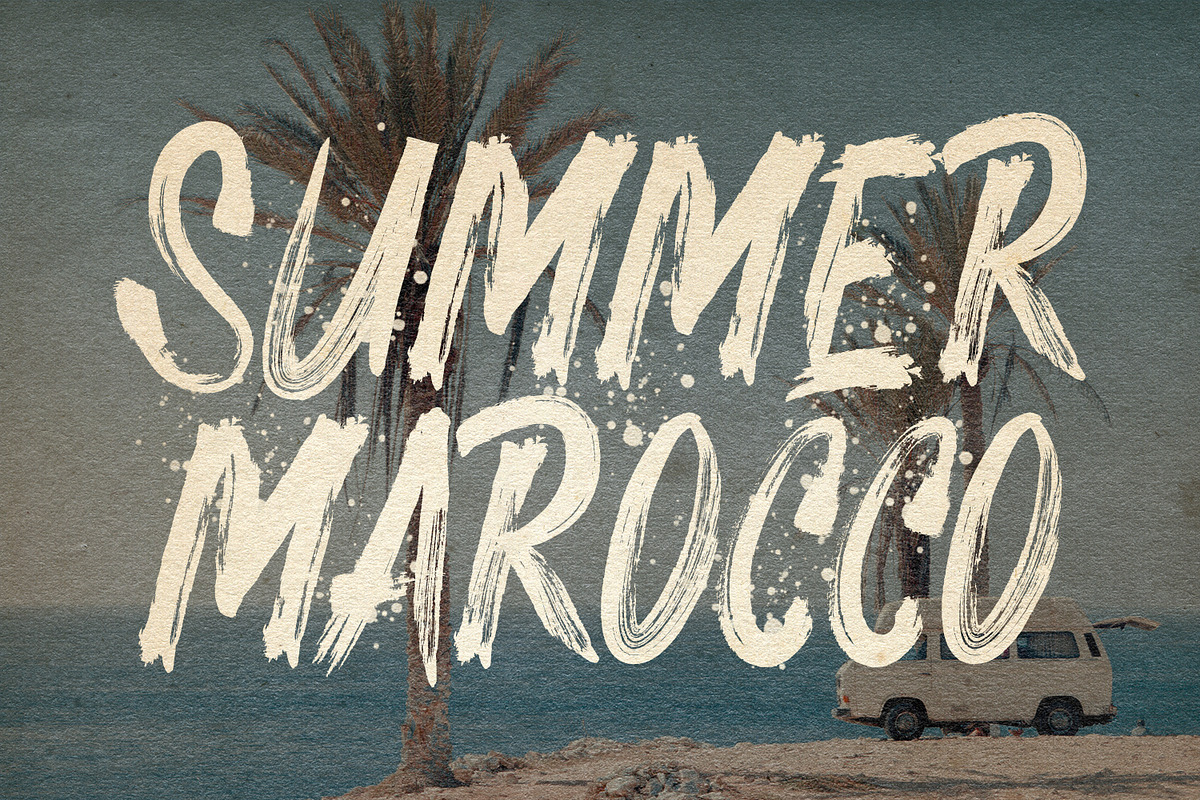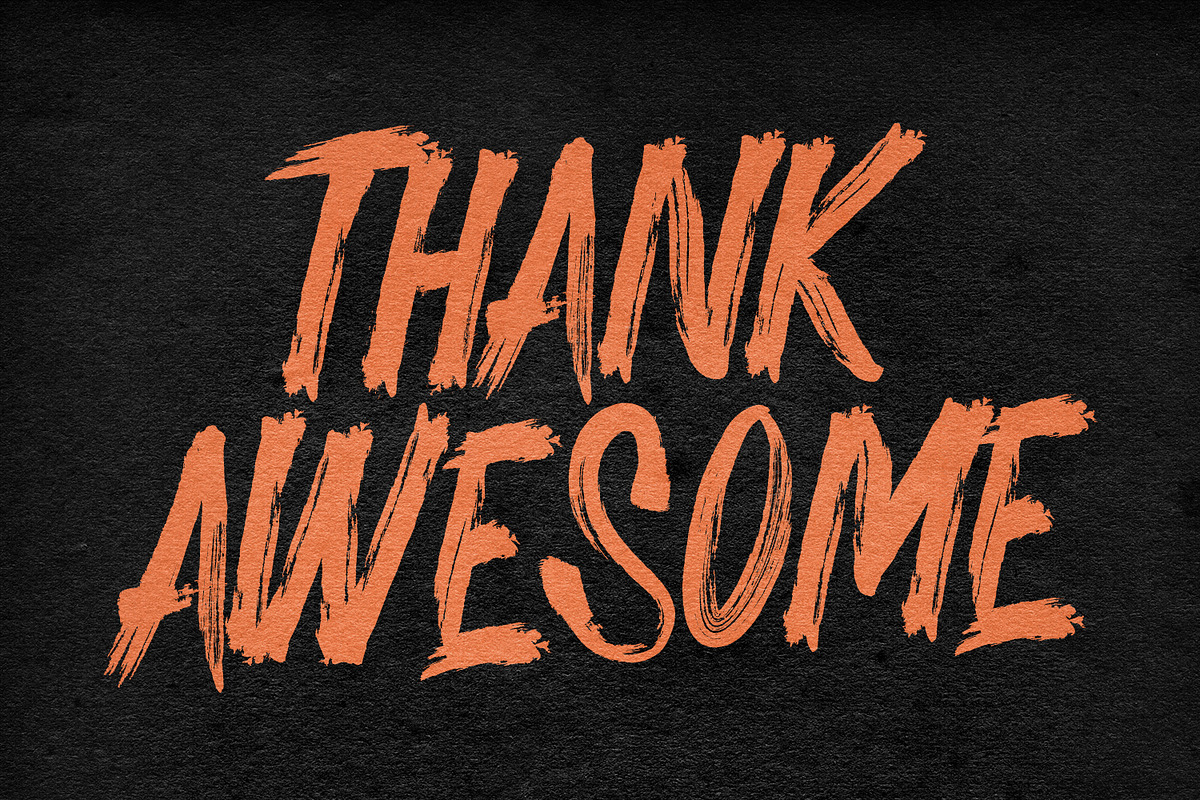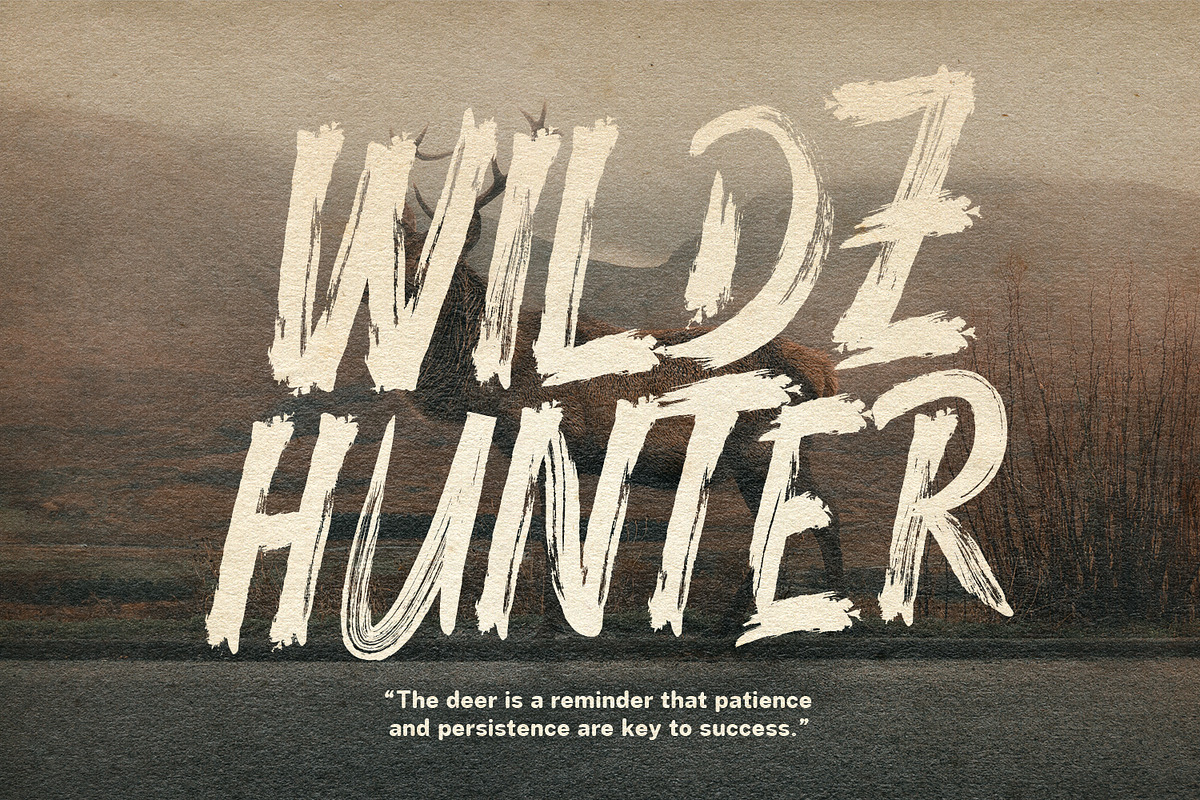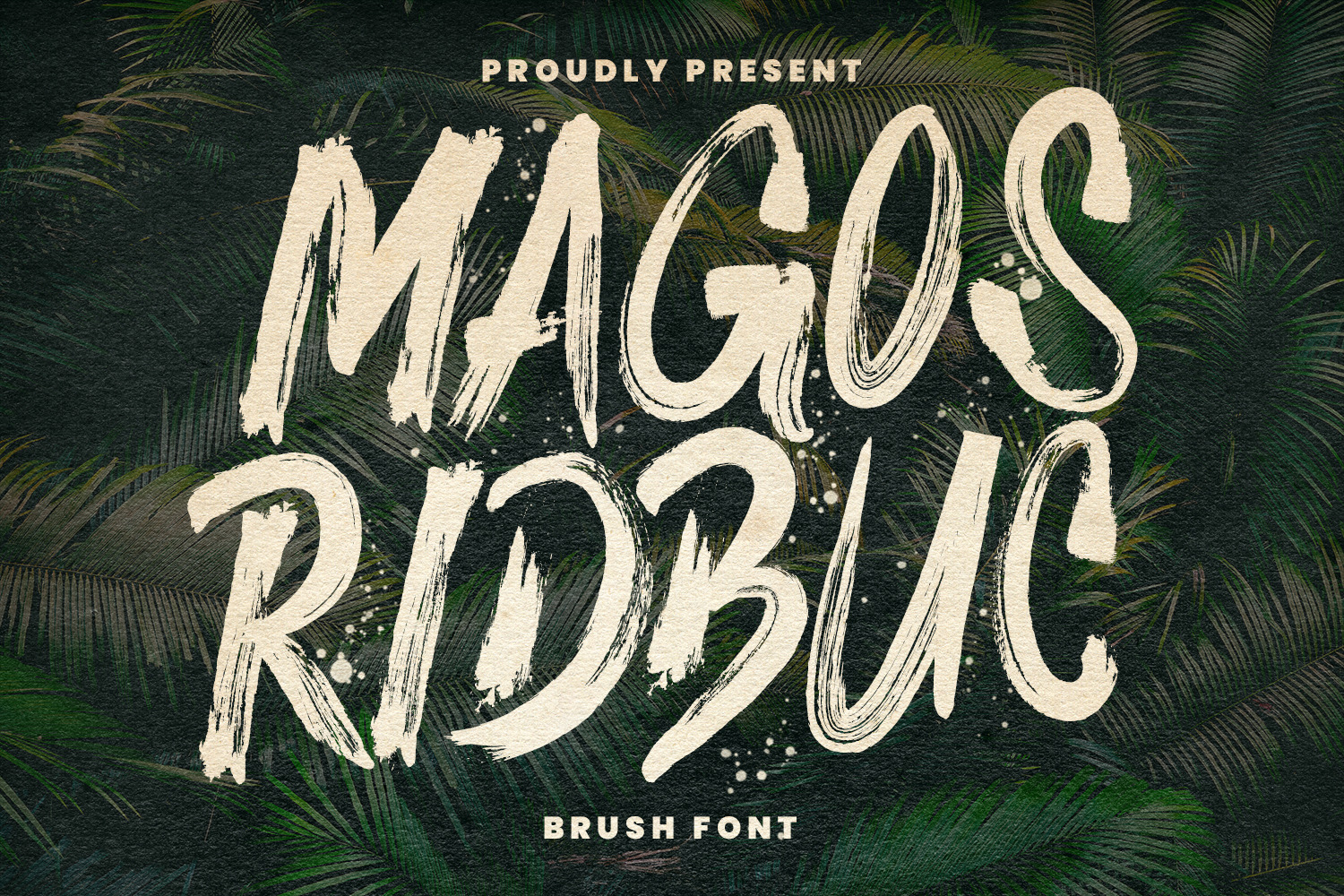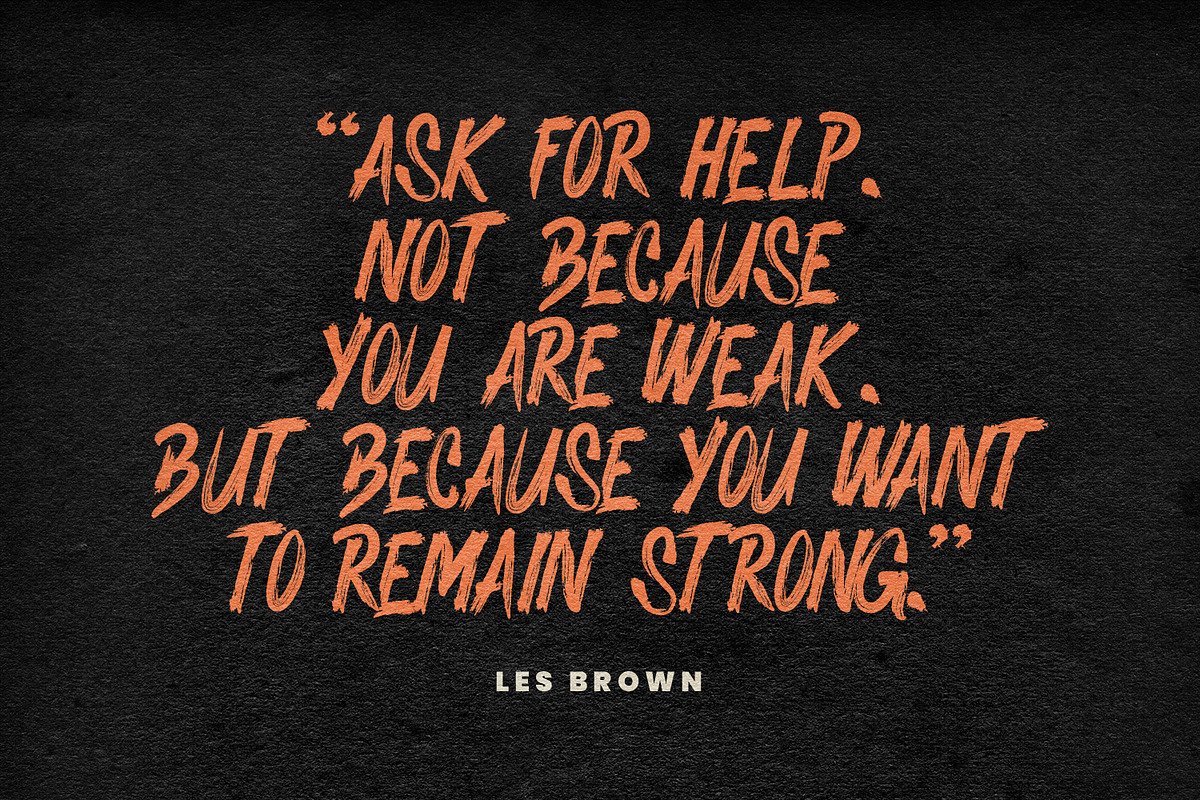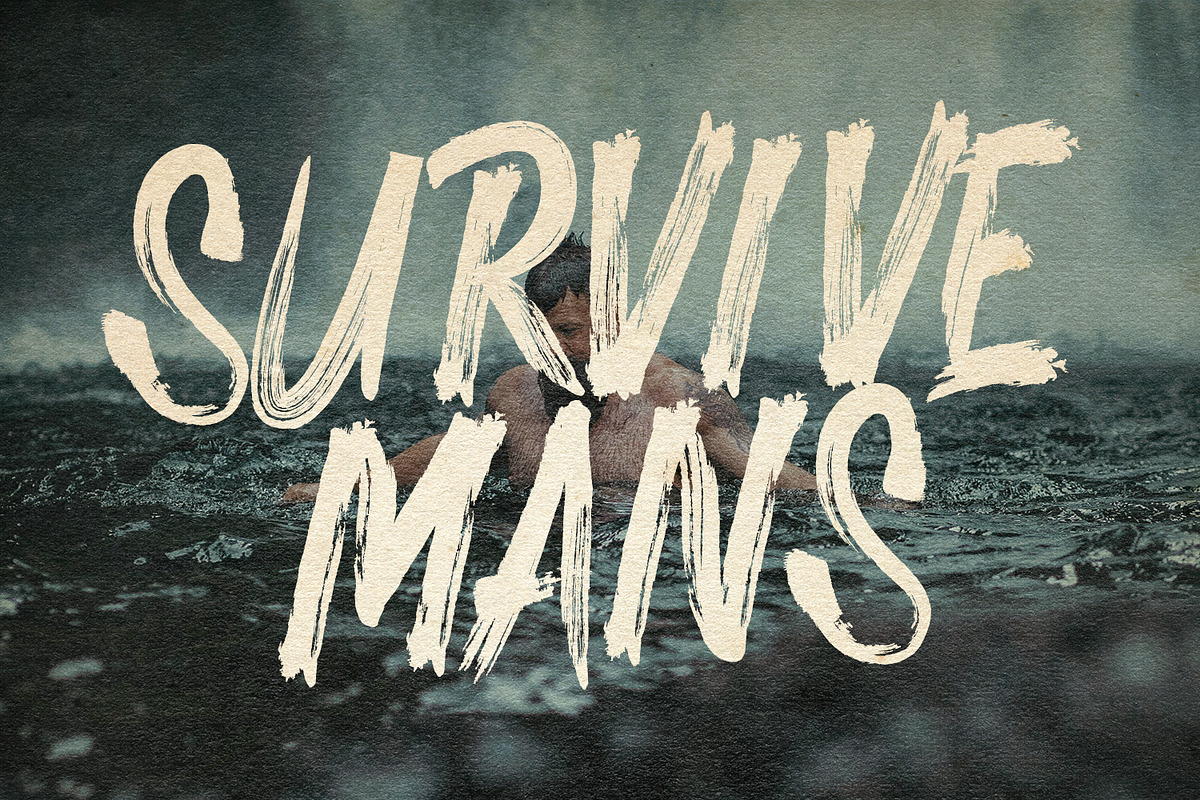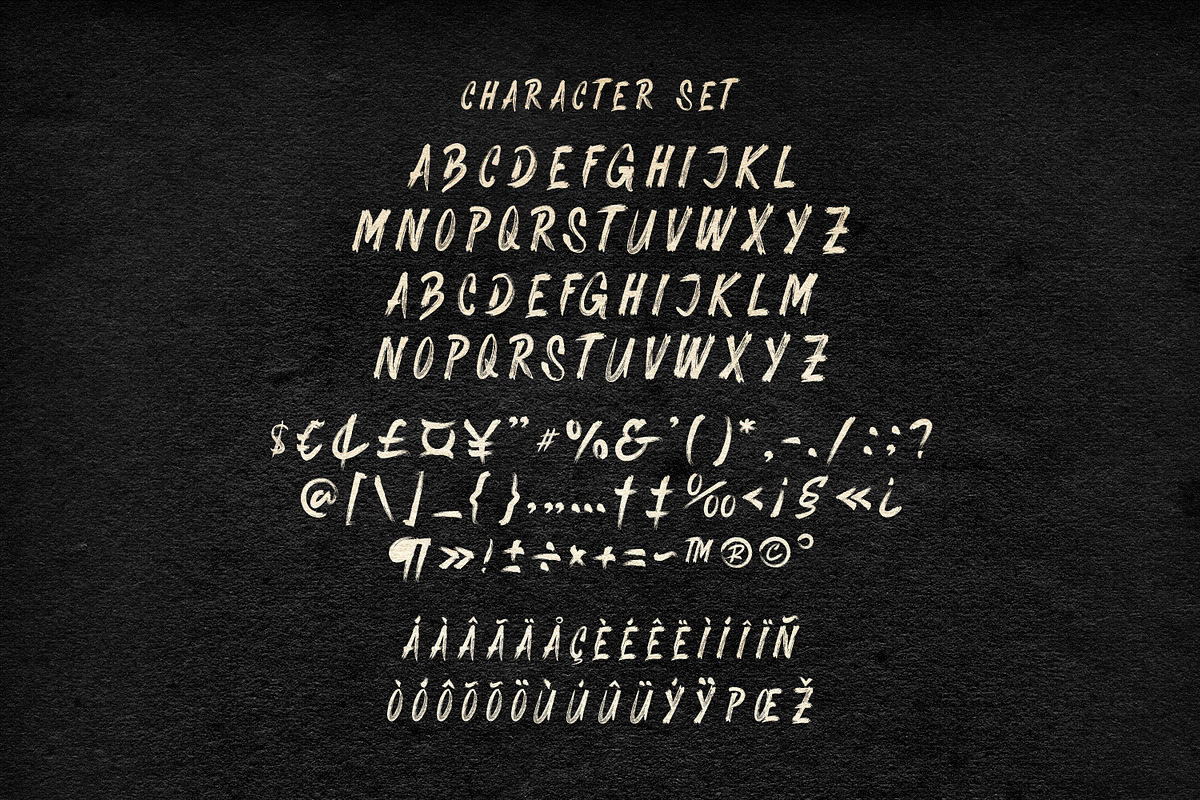
Magos Ridbuc Display Brush Font
Give your designs an authentic brush handcrafted feel. "Magos Ridbuc Display Brush Font" is perfectly suited to signature, stationery, logo, typography quotes, magazine or book cover, website header, flyer, clothing, branding, packaging design and more.